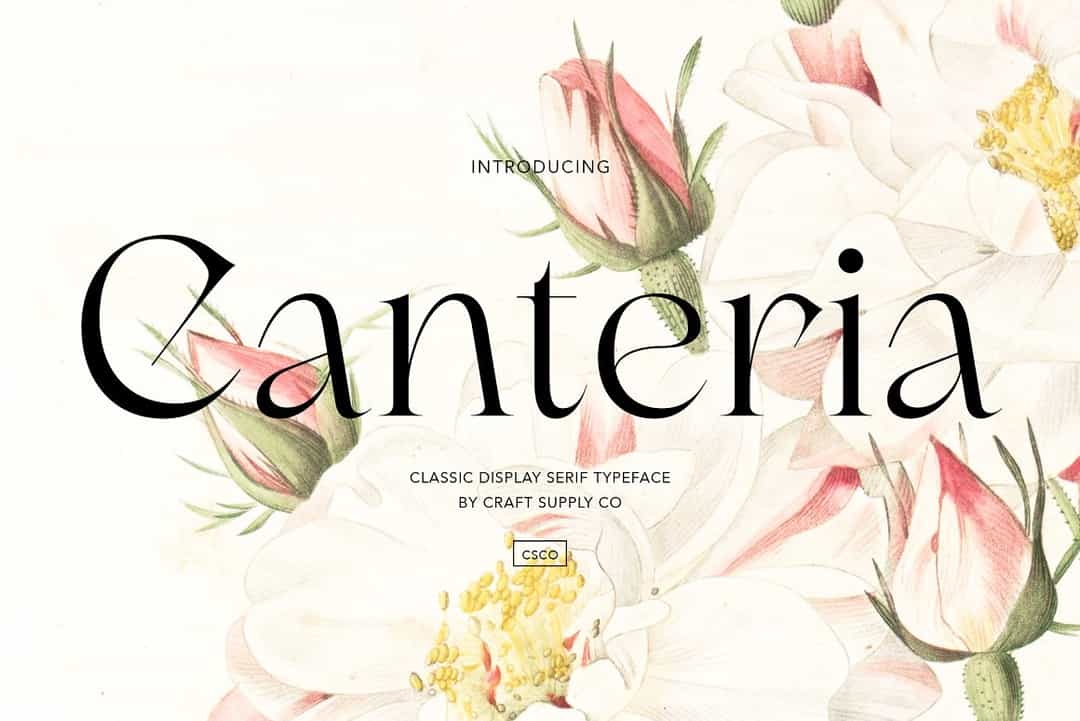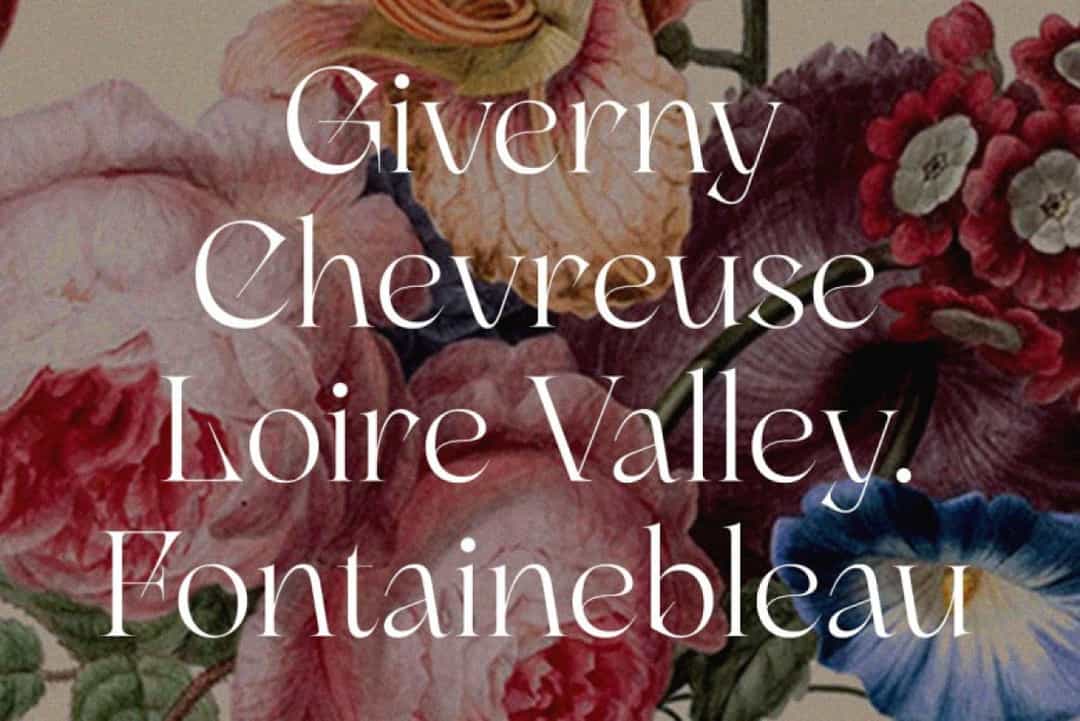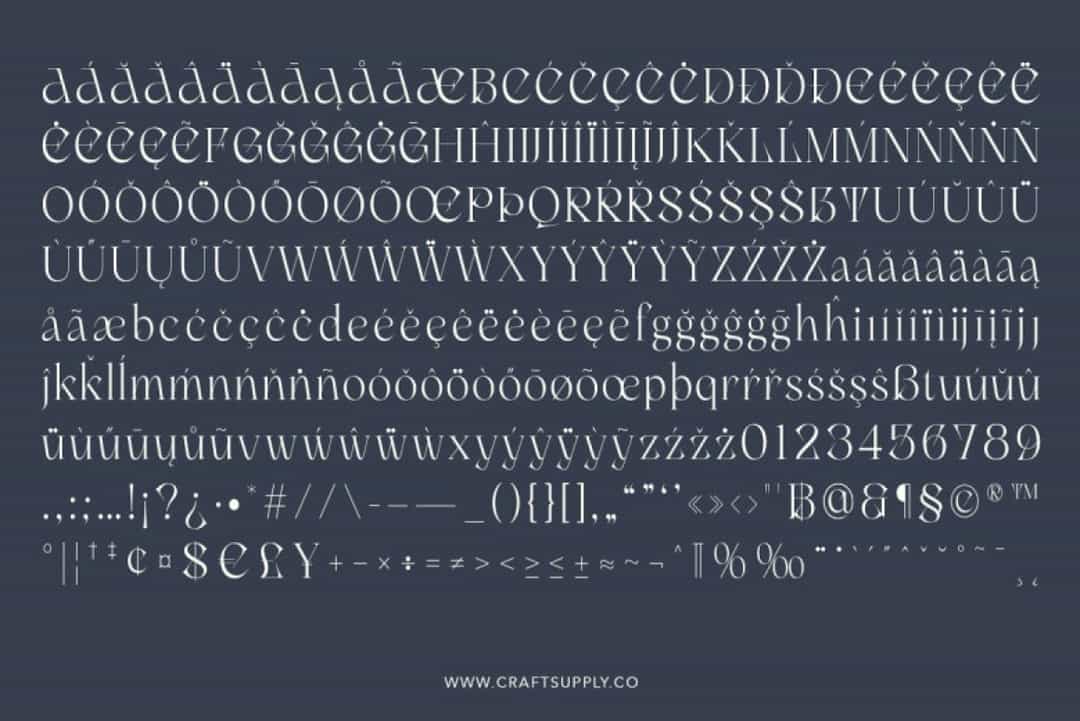
Canteria is an eye-catching serif typeface featuring chic and classic form structures that exudes flashy beauty, perfect for inviting card designs, packaging projects, brand identities or craft projects, DIY books and projects or posters featuring pop vintage retro designs – don’t hesitate to try experimenting with it in your artwork projects or designs! Don’t be afraid to use Canteria!